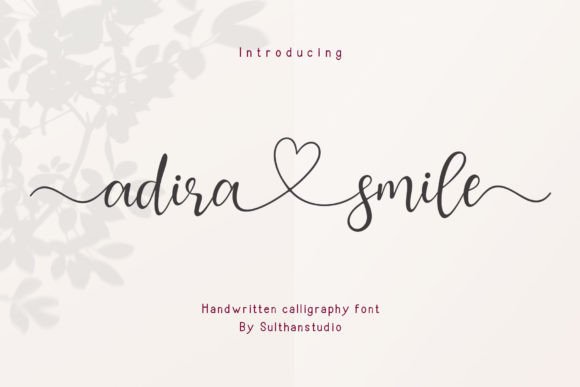
The Adira Smile Font: A Charming and Elegant Addition to Your Design Projects
A Personal Review of Adira Smile
- ✨ Elegant and charming feel that’s perfect for wedding invitations, thank you cards, and greeting cards
- 💫 Beautiful handwritten touch that’s perfect for adding a personal feel to your designs
- 🎨 Versatile and can be used for a wide range of design projects, from logos to business cards
While Adira Smile is an excellent font, there are a few things to keep in mind:
- ⚠️ Some users have reported issues with kerning, so be sure to adjust as needed
- 🤔 Limited availability of stylistic alternates, but what’s available is still impressive
- Experiment with OpenType features, such as ligatures and stylistic alternates, to add visual interest to your text
The Story Behind Adira Smile
Adira Smile was designed by a talented typographer who wanted to create a font that was both elegant and charming. Inspired by traditional handwriting, Adira Smile features beautiful letterforms and a flowing script that’s perfect for adding a personal touch to your designs.
| Font Name | Adira Smile Font |
| Author | Sulthan Studio |
| What is Adira Smile? | Adira Smile is a beautiful, handwritten font that’s perfect for adding a personal touch to your designs. |
| Does Adira Smile support OpenType features? | Yes, Adira Smile supports OpenType features, including ligatures and stylistic alternates. |